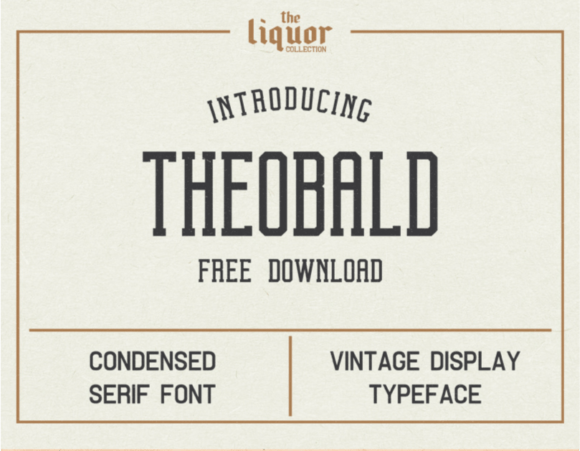
Theobald - Vintage Display Serif Font for Labels & Packaging
Theobald is a condensed serif typeface with a vintage aesthetic, inspired by retro beer labels, old‑fashioned posters, and classic advertising lettering. Its narrow letterforms, slight ornamental feel, and strong display presence make it ideal for logos, labels, packaging, signage, and other designs where you want a nostalgic, bold statement rather than subtle body text.
This is not just another “body text” serif — Theobald is designed for display‑size use, giving your designs an instant character that feels like classic signage or handcrafted vintage branding. It brings a unique vintage‑industrial atmosphere that works beautifully for rustic, retro, or boutique‑brand visuals.
- Logos for vintage‑style businesses (coffee shops, breweries, boutiques)
- Product labels, packaging designs, bottles or jar labels
- Posters, flyers, event invites, signage with retro vibes
- Wall art and home décor prints — vintage‑themed quotes or illustrations
- Brand identity materials: business cards, letterheads, tags, labels
- Social media or web graphics needing a strong “old‑school” tone (when converted to webfont)
- Full Latin character set (letters, numbers, punctuation)
- Display‑ready typeface optimized for logos, labels, headings, signage
- Clean condensed glyph set suited for tight spacing and narrow layouts
- Distinctive vintage/retro aesthetic — ideal for “heritage,” “artisan,” “rustic,” or “classic” brand identities
- Condensed design — great for fitting longer words in narrow spaces (e.g. labels, tags, signage)
- Strong visual impact — excellent for logos, headers, signage, branding
- Works beautifully for physical‑product labels and packaging — ideal for craft, food, beverage, or handmade goods
Q: Is this font suitable for body text?
A: No — Theobald is designed as a display / headline font. Its condensed, stylized letterforms make it ideal for logos, labels, signage or headings, but less suitable for long paragraphs or small‑size body text. -
Q: Is it good for packaging labels and branding for craft or boutique products?
A: Yes — its vintage, condensed style is especially well‑suited for packaging, labels, signage, and branding that needs a nostalgic or premium‑artisanal feel.
| Feature | Theobald | Generic Display Serif A | Generic Display Serif B |
| Style | Vintage condensed serif, stylized display font | Modern serif display font — regular width, balanced proportions | Slab serif display font — blocky serifs, bold weight |
| Best use | Logos, labels, packaging, signage, vintage/retro branding | Elegant headings, editorial titles, classic branding | Bold signage, posters, heavy‑duty branding |
| Width / Spacing | Condensed — fits longer text in narrow spaces | Normal width — balanced spacing | Wide / heavy — needs more space |
| Visual vibe | Retro, vintage, handmade / artisanal feel | Classic, refined, timeless | Strong, bold, heavy, industrial |